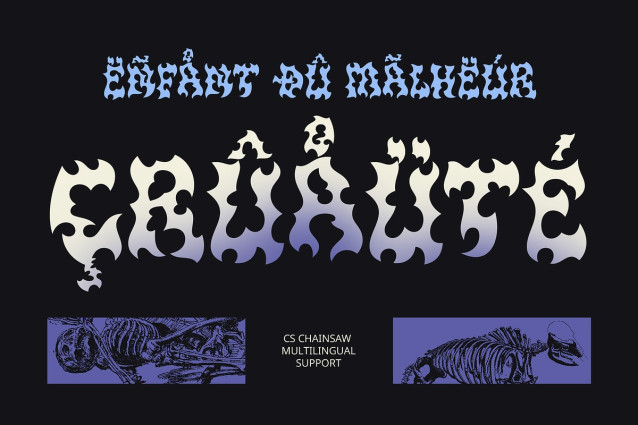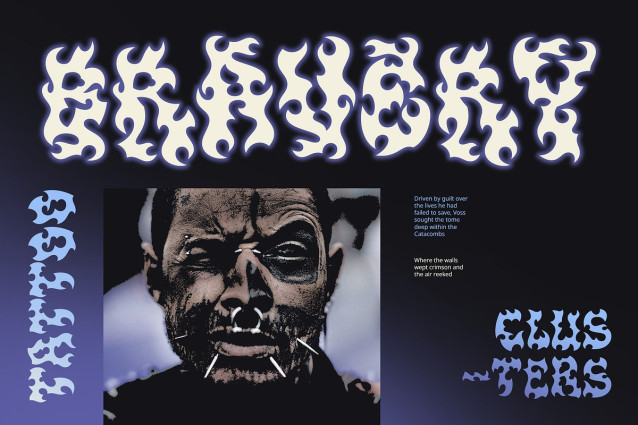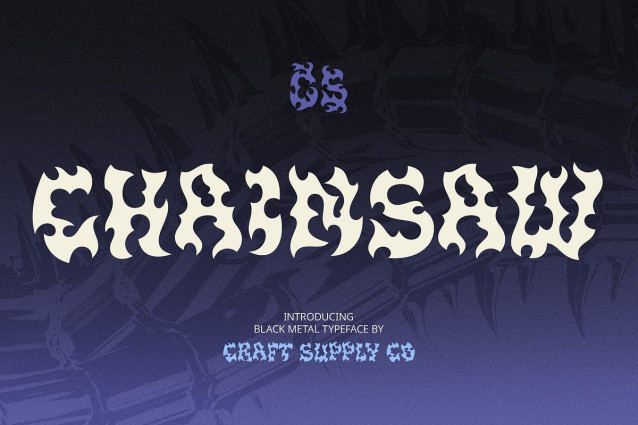
CS Chainsaw Font
CS Chainsaw – Black Metal Font embodies the raw intensity of black metal with its sharp, asymmetrical forms and chaotic energy. Inspired by twisted roots and gnarled branches, the font’s intricate shapes evoke a sense of darkness and disorder, perfectly aligning with the extreme visual language of metal culture.
Evokes Chaos and Darkness Each letterform in CS Chainsaw Display Font is designed to feel unsettling and powerful, capturing the visual chaos that defines black metal aesthetics. The jagged, distorted lines create a visual tension that mirrors the intensity of the genre, making it ideal for projects that explore themes of horror, mysticism, or rebellion.
Perfect for Extreme and Occult Themes This font is the perfect match for music posters, album covers, and branding for bands in the extreme music genre. It’s also fitting for horror films, occult literature, or any visual work that demands a mysterious, edgy, and dramatic typeface. CS Chainsaw brings atmosphere and attitude to the forefront.
Intense Visual Impact With its dramatic presence and unique forms, CS Chainsaw – Black Metal Font stands out in any design. It’s not just a typeface—it’s an experience. Use it when you want your message to scream intensity, provoke emotion, and leave a lasting impression drenched in darkness.